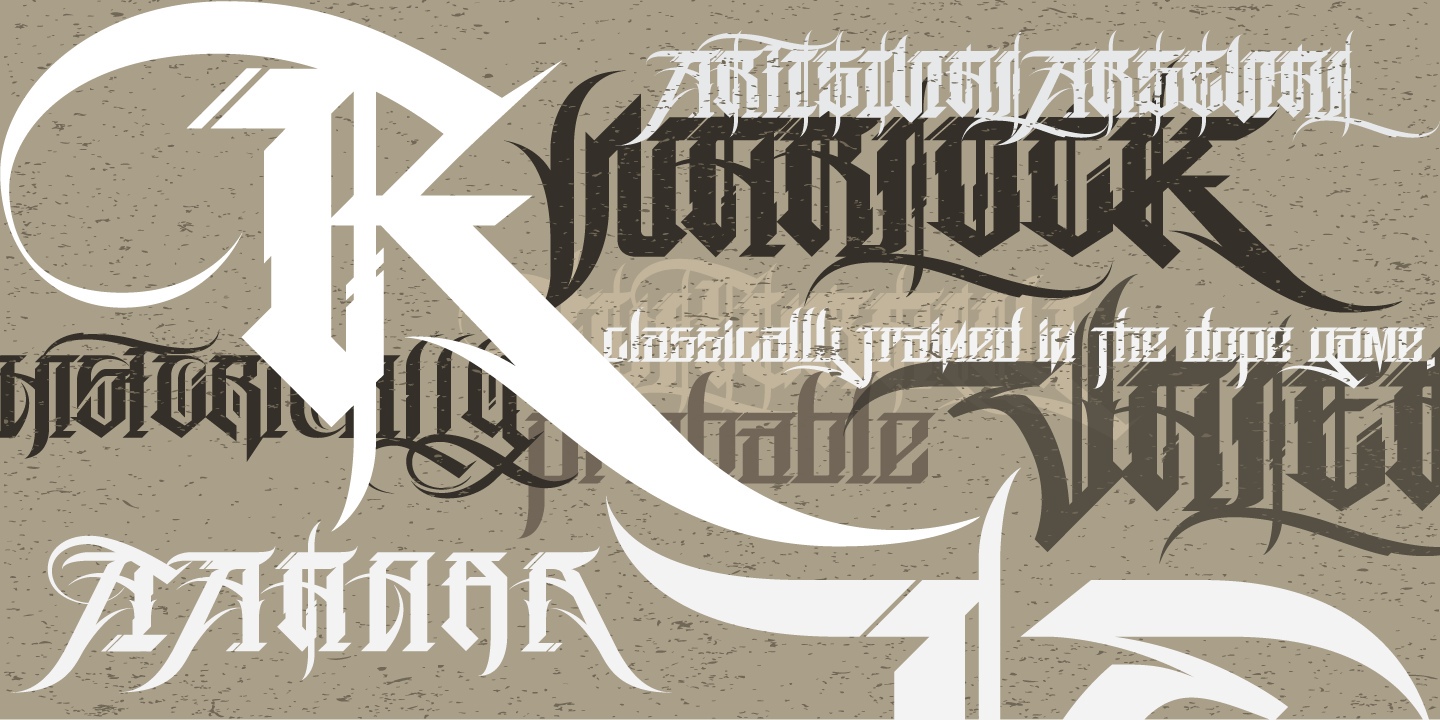
Rase Grimm Font
Rase Grimm Font is perfect for dark fantasy book covers, horror game design, gothic branding projects, haunted attraction signage, metal band logos, supernatural entertainment venues, occult publications, and atmospheric horror marketing materials.
Rase Grimm Font is exciting because it embodies sinister elegance with haunting letterforms and gothic character details that evoke supernatural mystery and dark fantasy atmosphere. Its menacing personality creates immediate visual tension and authentic horror appeal that resonates with audiences seeking macabre experiences and gothic authenticity.
Rase Grimm Font family includes regular weight with gothic alternates and supernatural variations, providing designers with comprehensive options for creating dark typography solutions that project horror authenticity and supernatural character.
Rase Grimm Font Free Download delivers premium gothic typography that embodies the essence of dark fairy tales and supernatural horror. This distinctive typeface demonstrates exceptional attention to gothic detail through its haunting letterforms and sinister character construction that creates genuine dark fantasy appeal without sacrificing readability. The font's menacing personality makes it particularly suitable for horror entertainment venues, gothic fashion brands, dark fantasy gaming companies, and supernatural media seeking to establish authentic horror atmosphere that connects with audiences craving dark fantasy experiences and gothic heritage.
Creative professionals consistently select Rase Grimm Font for projects requiring horror authenticity and supernatural visual impact. Its haunting character works magnificently in horror venues, gothic boutiques, dark entertainment applications, and supernatural branding where atmospheric immersion and sinister personality drive audience engagement. The font's gothic nature creates memorable brand experiences that transport audiences into realms of dark fantasy and supernatural terror.
Design teams appreciate Rase Grimm Font's ability to create instant brand recognition through its distinctive horror character and powerful supernatural appeal. Its authentic gothic styling transcends contemporary design trends while maintaining the atmospheric impact required for horror market positioning, making it an essential tool for brands seeking to establish emotional connections through superior gothic typography and exceptional supernatural communication.